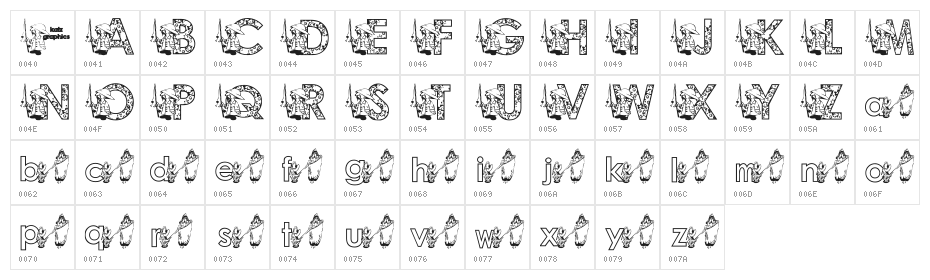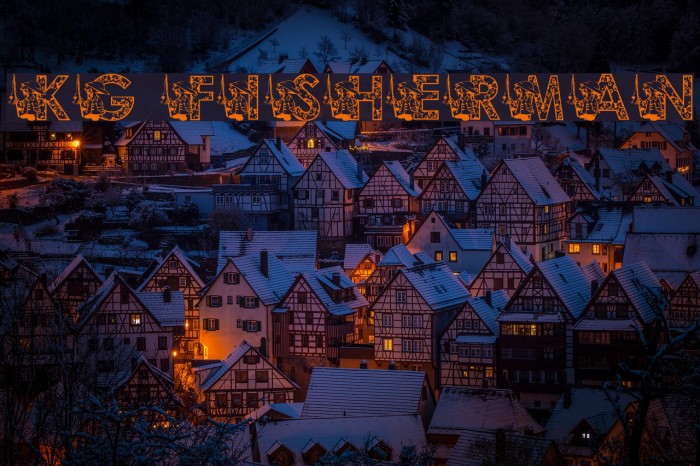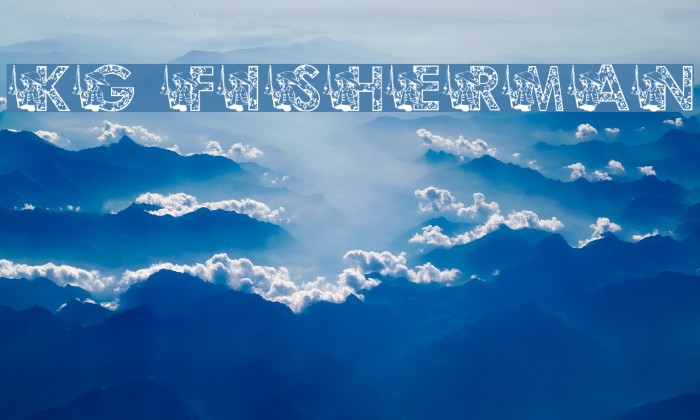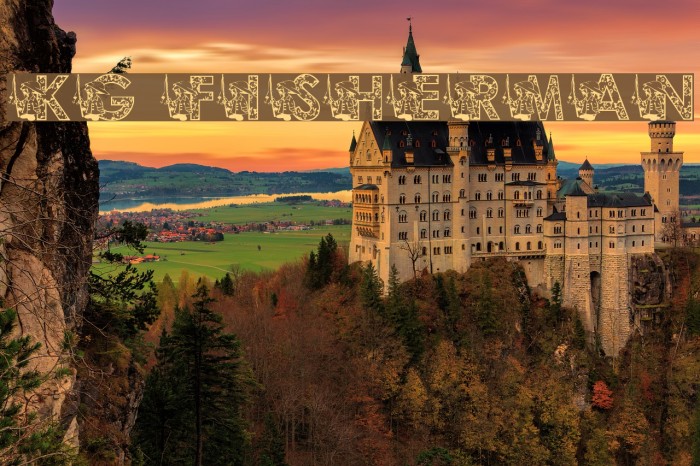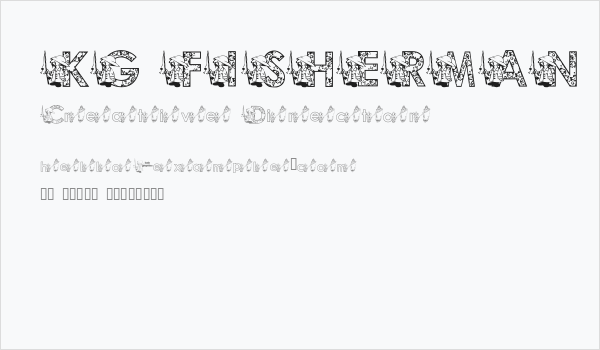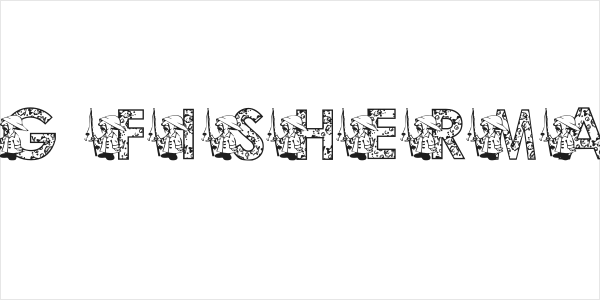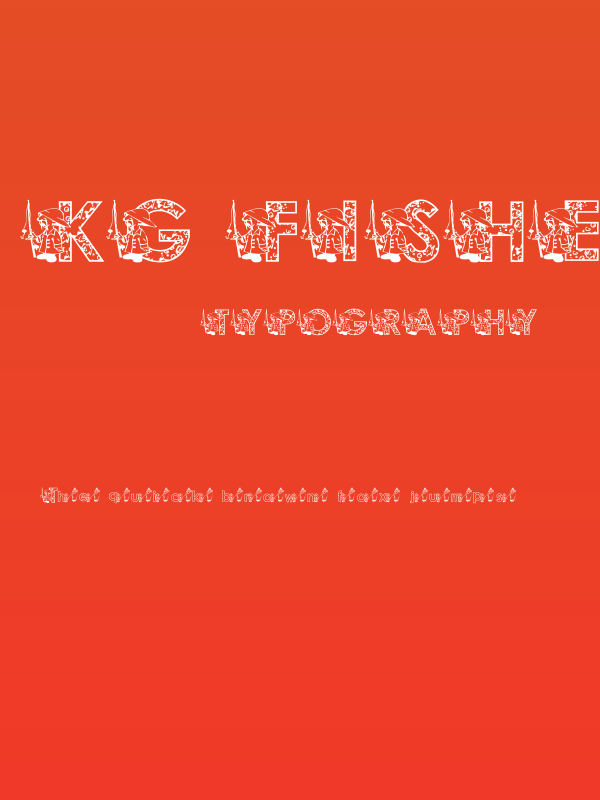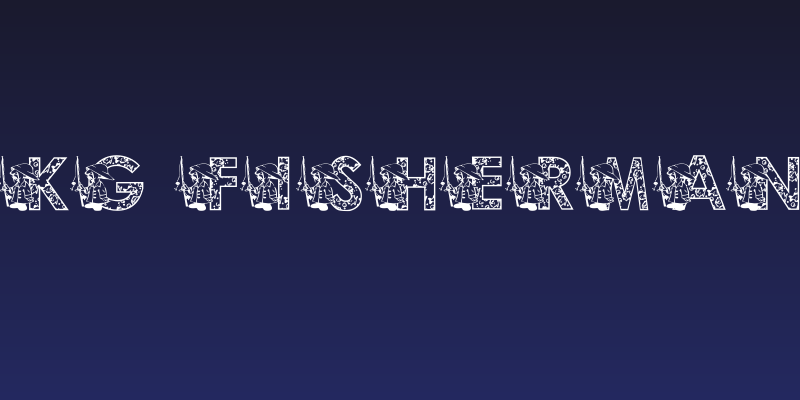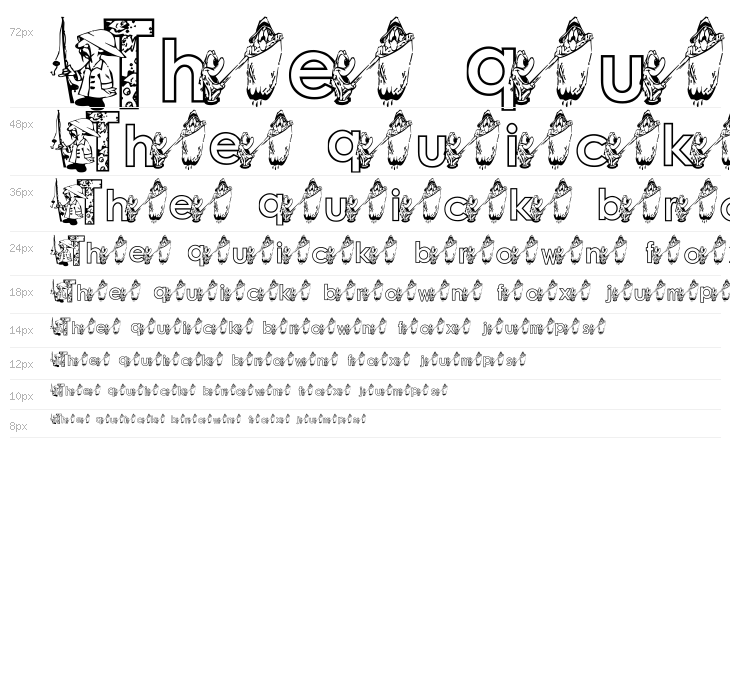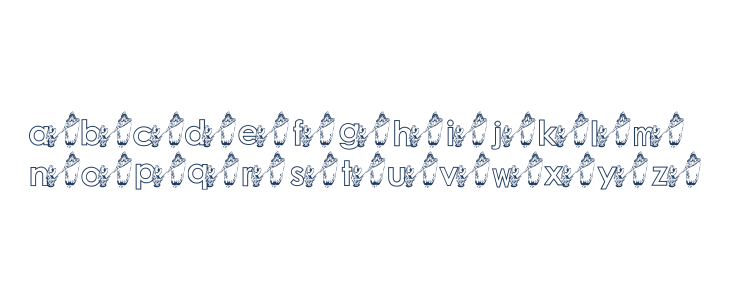
KG FISHERMAN Font
KG FISHERMAN Description
This font features a unique and playful design with intricate fish illustrations integrated into each character. The uppercase and lowercase letters are adorned with detailed aquatic elements, creating a whimsical and decorative appearance. The characters maintain a consistent style, with the fish motifs seamlessly blending into the letterforms. This font is visually striking and offers a creative twist on traditional typography, making it ideal for projects that require a distinctive and artistic touch.
| Proposed Projects | Ideal for children's books, aquatic-themed designs, creative posters, and unique branding projects. |